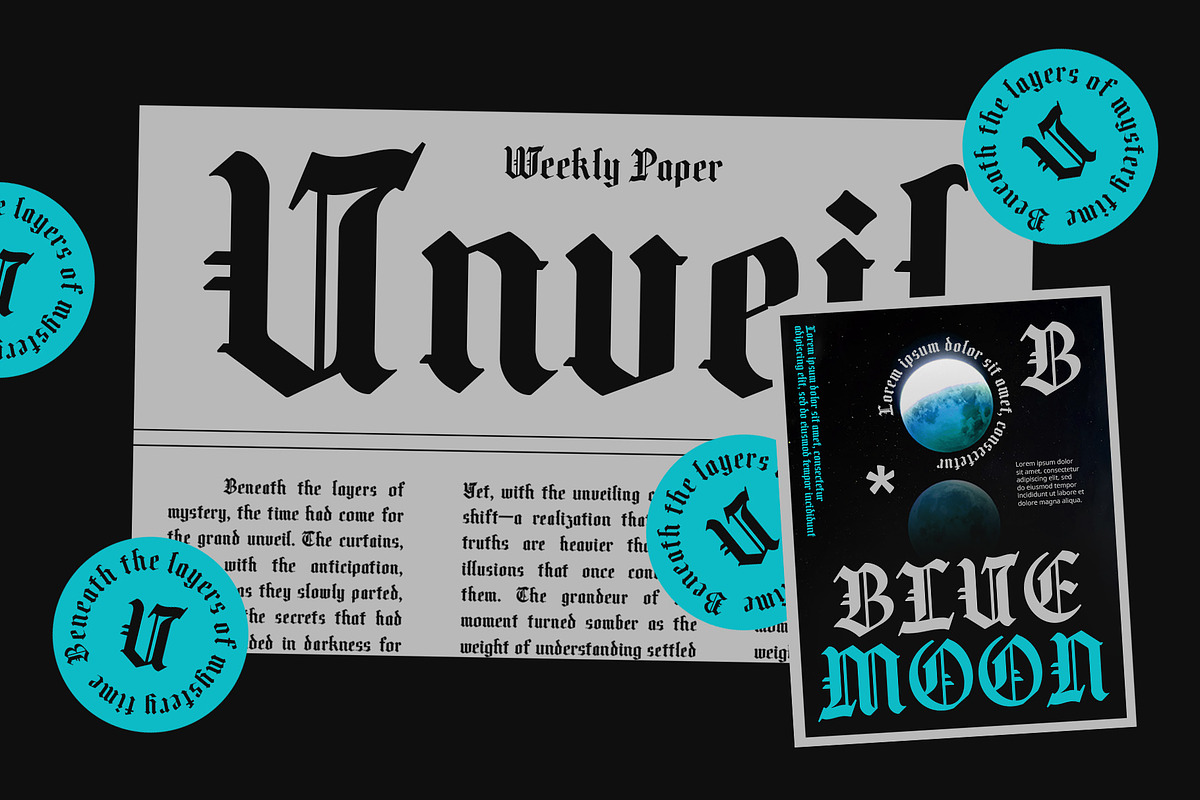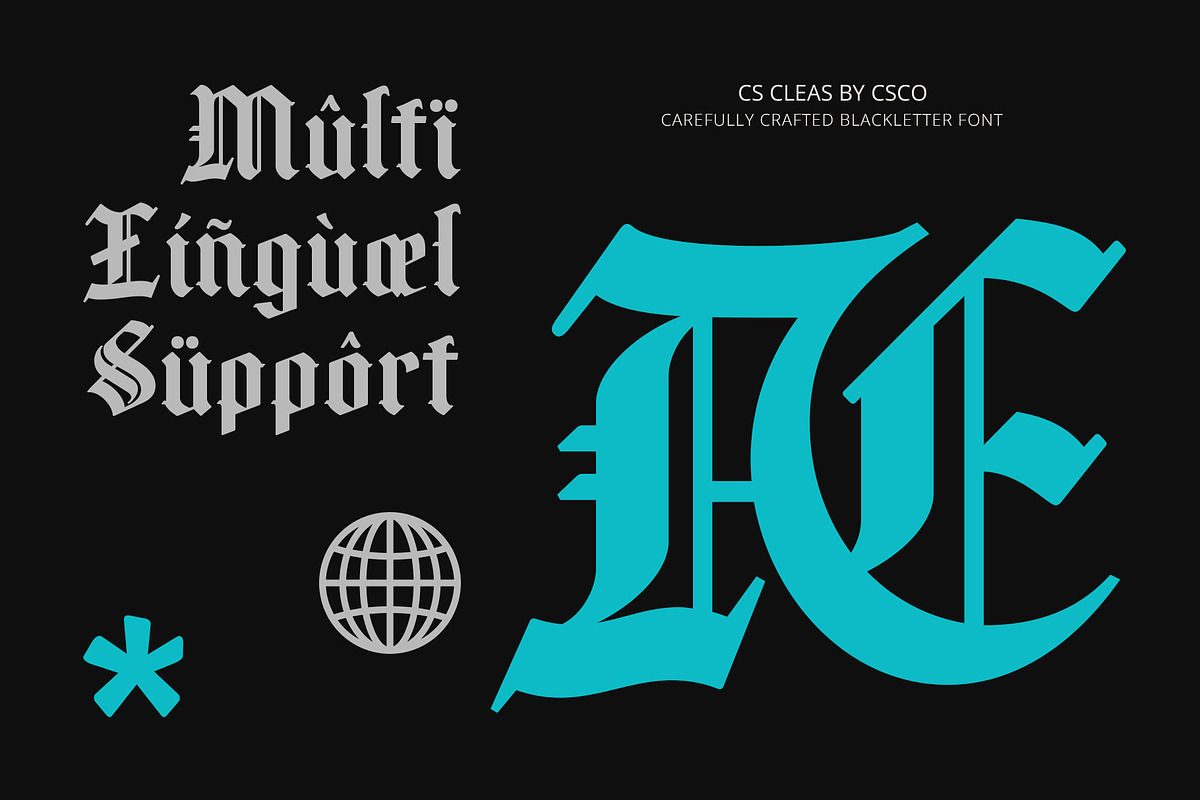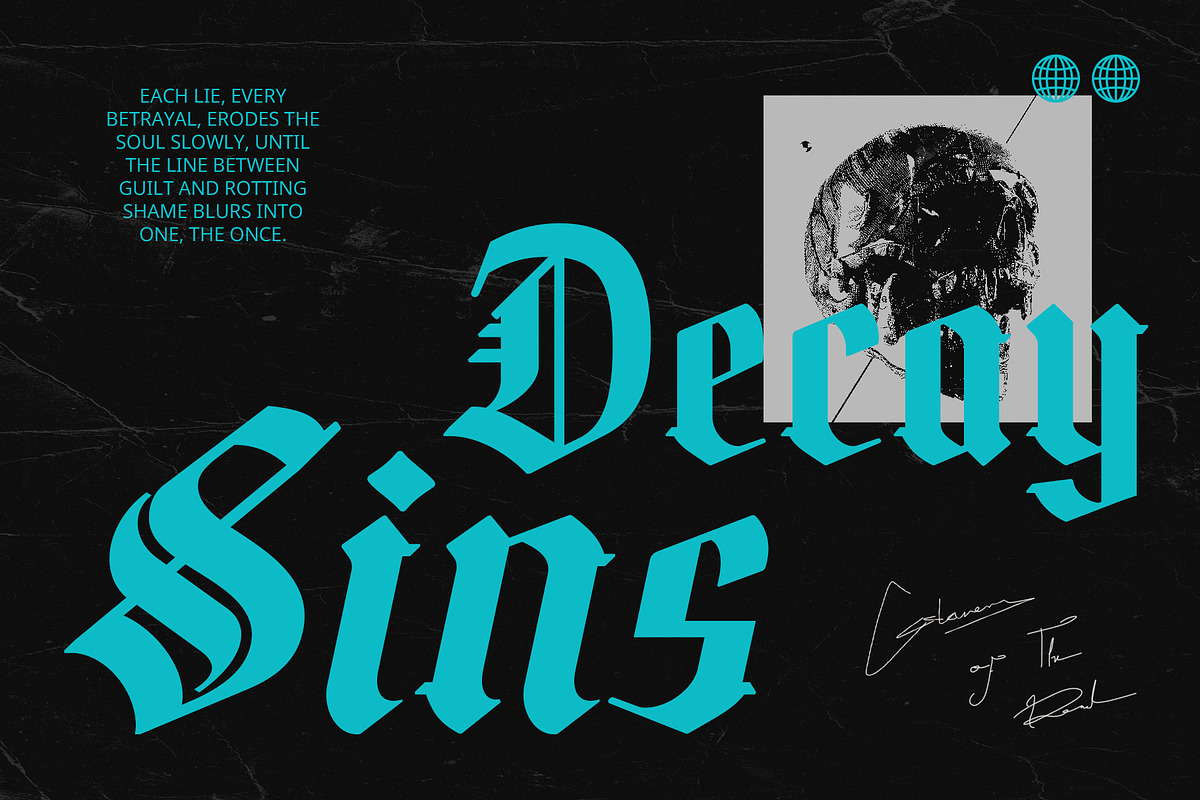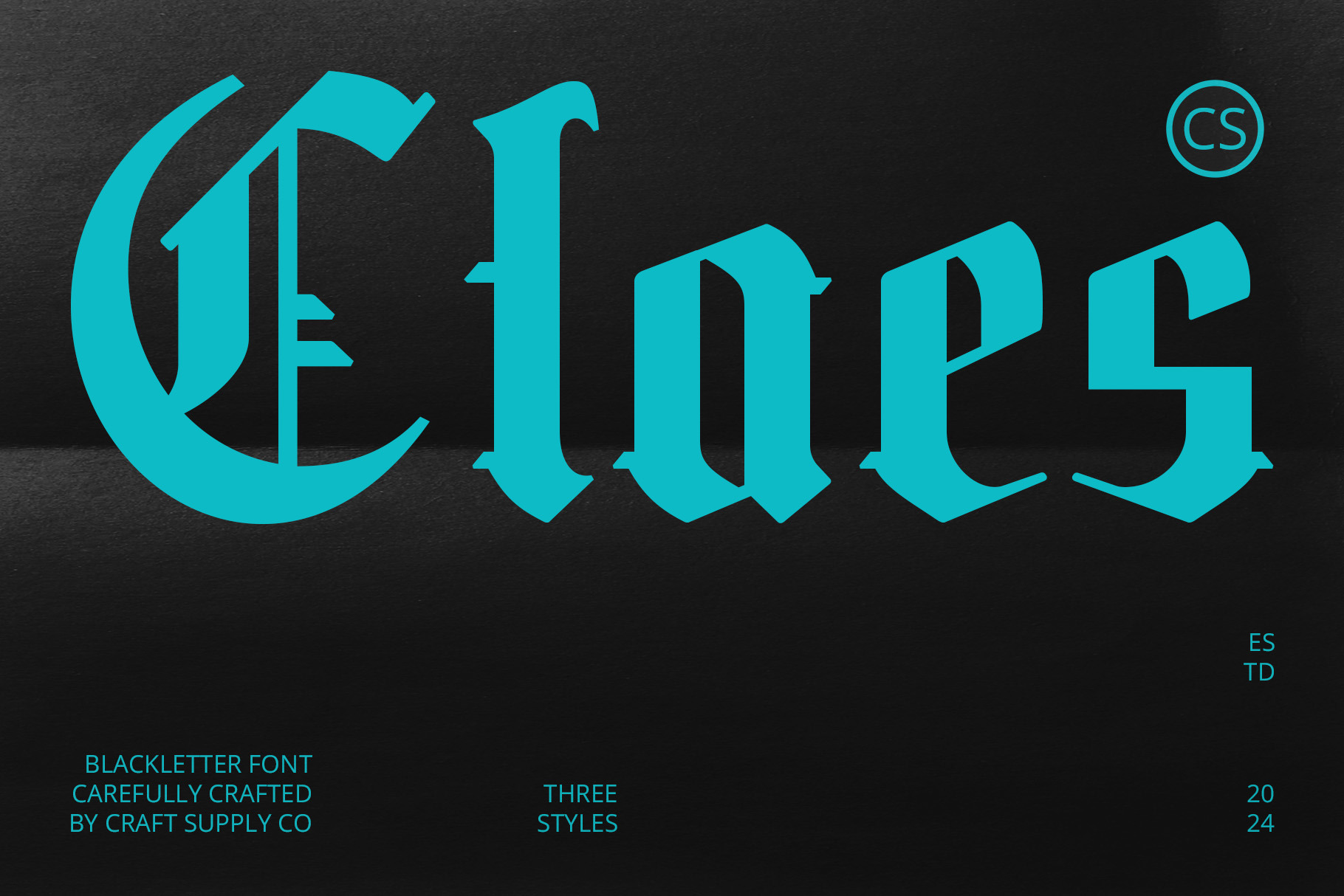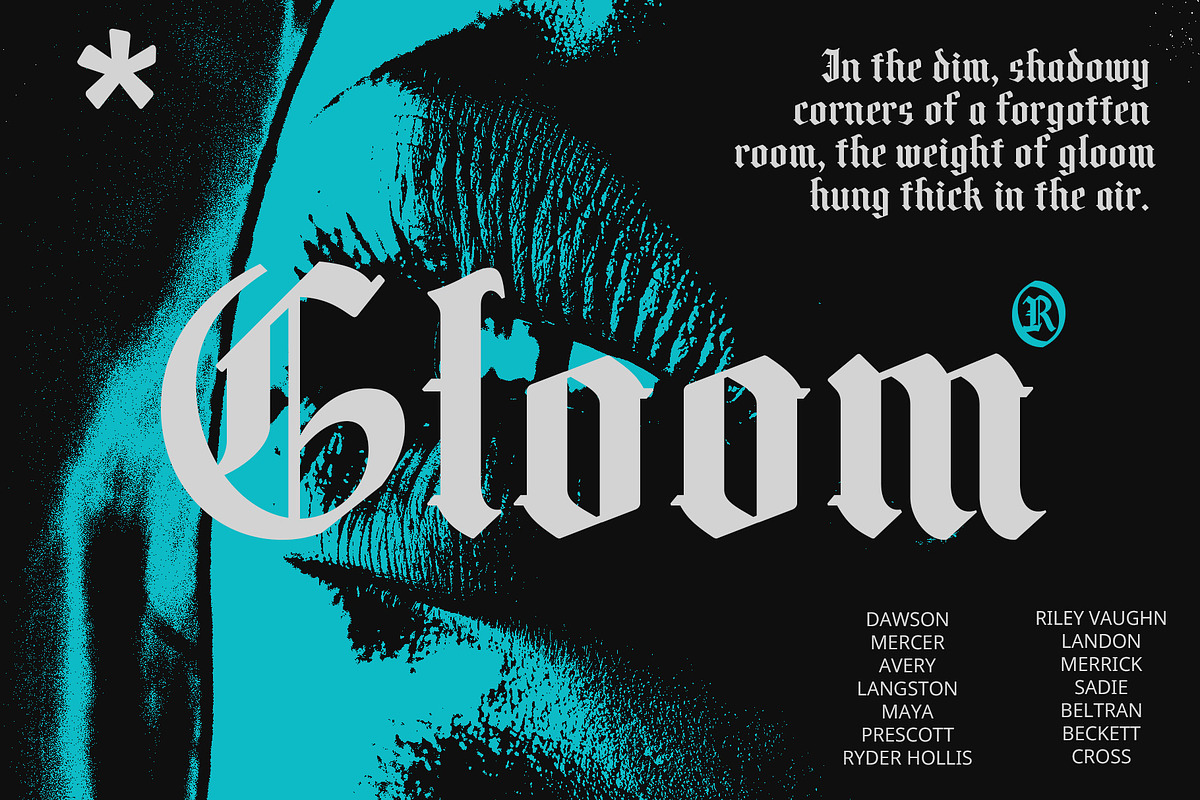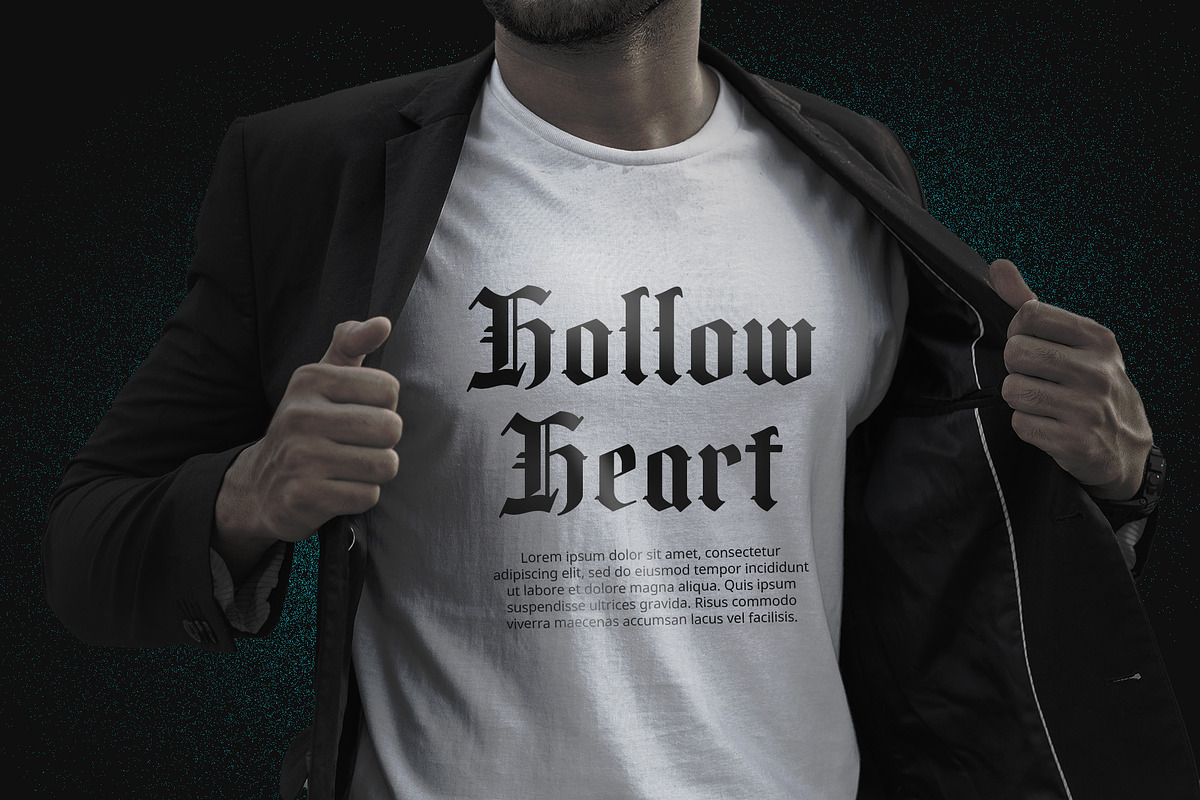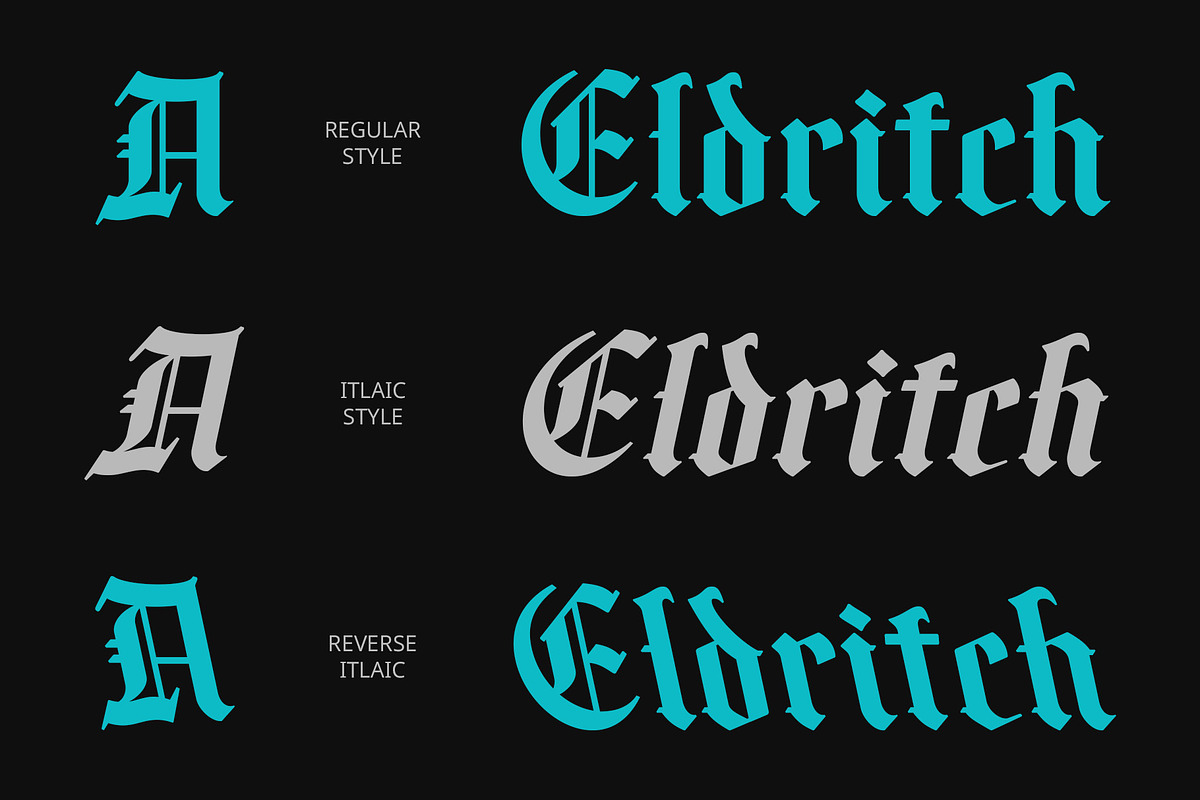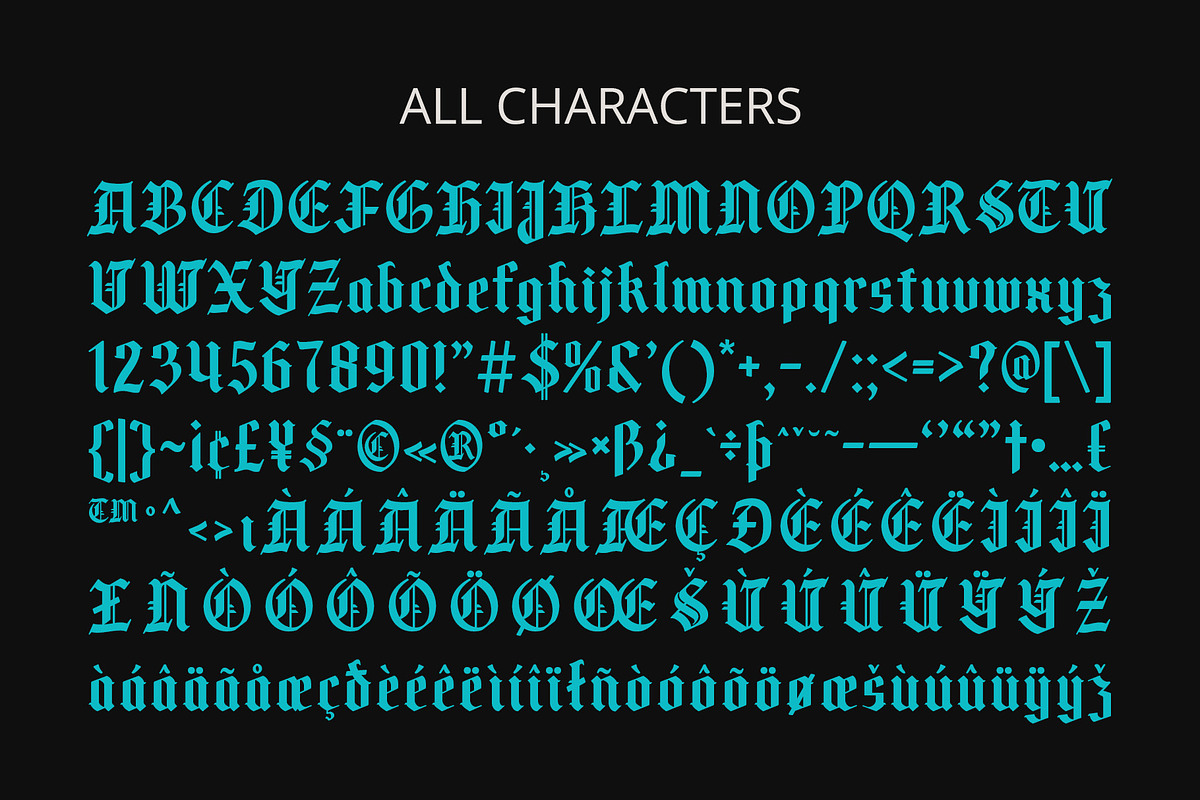
CS Claes – Old English Font
CS Claes – Old English Font: A Timeless Touch of Medieval Elegance
Old English Textura Inspired by Historical Manuscripts CS Claes is an Old English Textura display font that draws inspiration from the intricate handwriting of medieval manuscripts. With sharp, upright letterforms and rich ornamental details, including elegant curves and pointed angles, this font embodies the essence of ancient English script, creating a captivating and authentic historical feel.
Classic and Dramatic Aesthetic Evoking a classic and dramatic atmosphere, CS Claes is the perfect choice for designs that require a sense of tradition and sophistication. Its bold presence and intricate detailing make it ideal for formal invitations, vintage logos, and any project that aims to convey elegance and cultural heritage.
Rich Ornamental Details for Visual Impact The ornamental qualities of CS Claes add visual depth and richness to any design. Its striking letterforms enhance the overall aesthetic, making it suitable for projects that celebrate history, such as book covers, heritage branding, and artistic displays, providing a strong visual narrative that resonates with viewers.
Versatile for Historical and Contemporary Applications While firmly rooted in tradition, CS Claes also finds relevance in modern design contexts. Its unique character and dramatic flair make it a versatile choice for a wide range of applications, from branding to event materials, ensuring that your projects stand out with a touch of historical elegance.
- CS Claes Regular
- CS Claes Italic
- CS Claes Reverse Italic